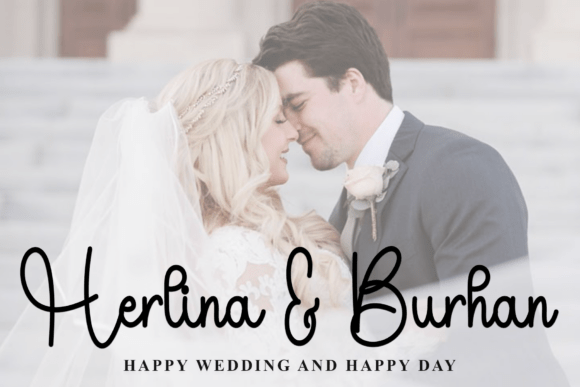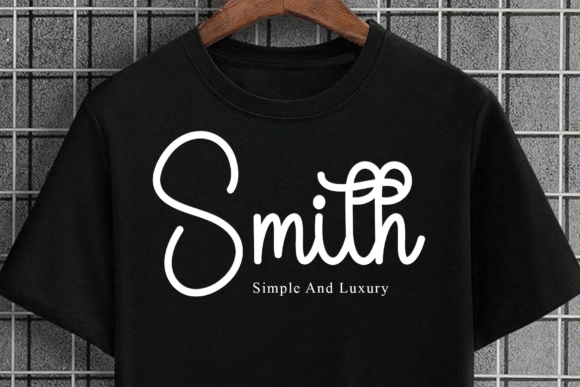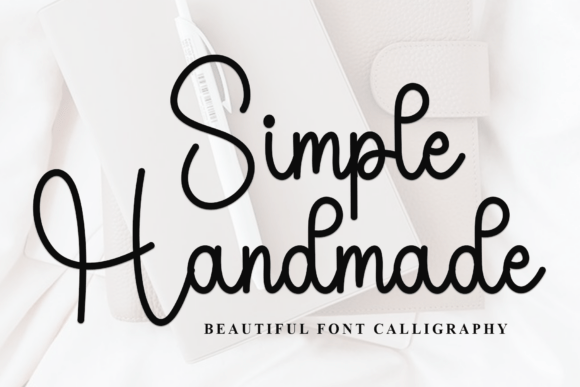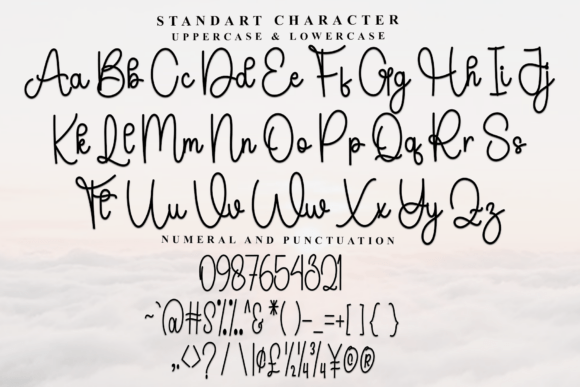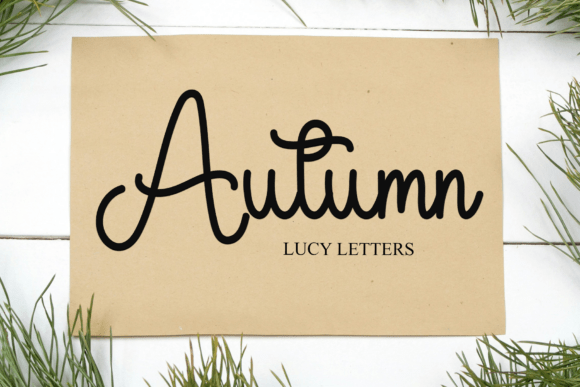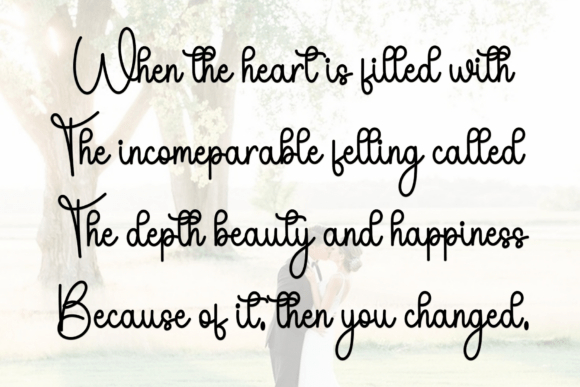
The Magic of Daily Font: A Festive Holiday Companion
Ah, the holiday season is upon us, and as designers, crafters, and creative hobbyists, we’re often on the lookout for that perfect font to capture the spirit of the season. I still remember the year I was working on a holiday card project, and my client asked for a font that was “festive, merry, and nostalgic.” I scoured the internet, tried out countless fonts, but none seemed to quite fit the bill. That was until I stumbled upon Daily Font. ✨
With its decorative elements and whimsical flair, Daily Font adds a touch of enchantment to your designs. It’s perfect for greeting cards, gift tags, and holiday-themed projects, bringing a cheerful and nostalgic ambiance to your words. In this article, we’ll dive into the world of Daily Font, exploring its features, and how to make the most of it in your designs.
- ✨ Festive and merry vibe that’s perfect for the holiday season
- ✅ PUA encoded for easy access to glyphs and ligatures
- 🎉 Whimsical flair that adds a touch of enchantment to your designs
- 📚 Perfect for greeting cards, gift tags, and holiday-themed projects
While Daily Font is a stunning addition to any design, there are a few things to keep in mind. 🤔
- ⚠️ Limited use outside of holiday-themed projects (it’s a specialty font, after all!)
- ⚠️ Might not be the best choice for body text or long-form content
The Backstory of Daily Font
While the origins of Daily Font are shrouded in mystery, it’s easy to imagine a designer sitting by the fireplace, surrounded by holiday decorations, and pouring their heart into creating a font that captures the magic of the season. ❄️
Perhaps the designer was inspired by vintage holiday cards, or the twinkling lights of a snow-covered tree. Whatever the inspiration, Daily Font is a true gem that brings a touch of festive cheer to any design.
Q: What is PUA encoding, and how does it benefit Daily Font?
PUA (Private Use Area) encoding allows designers to access a wide range of glyphs and ligatures, making it easier to create beautiful, unique designs. In the case of Daily Font, PUA encoding means you can easily access the font’s festive features. 🤩